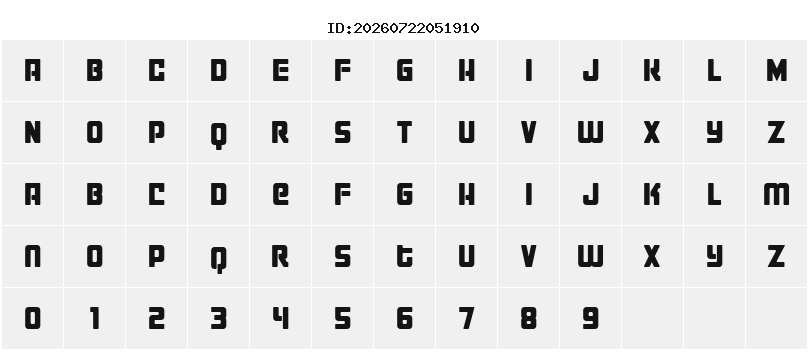
Hustle Preview
• Font Name: Hustle
• Full Font Name: Hustle
About Hustle.ttf
Hustle.ttf is a modern, elegant sans-serif font designed for ultimate readability and visual harmony. Perfect for branding, headlines, web design, and print materials.